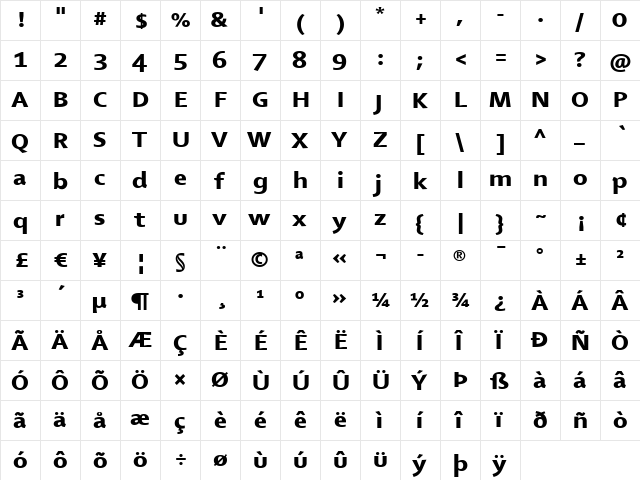
Shaker Regular
Design Context for Shaker Typeface
Shaker offers clean, dependable letterforms without strong stylistic allegiance, making it a practical choice for designers who need flexibility.